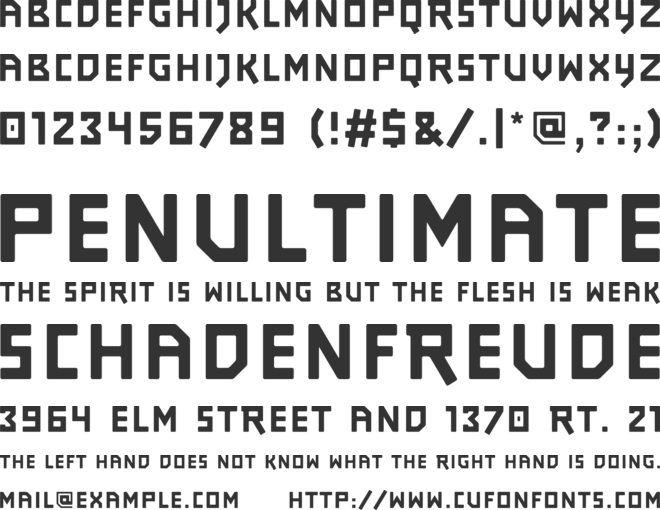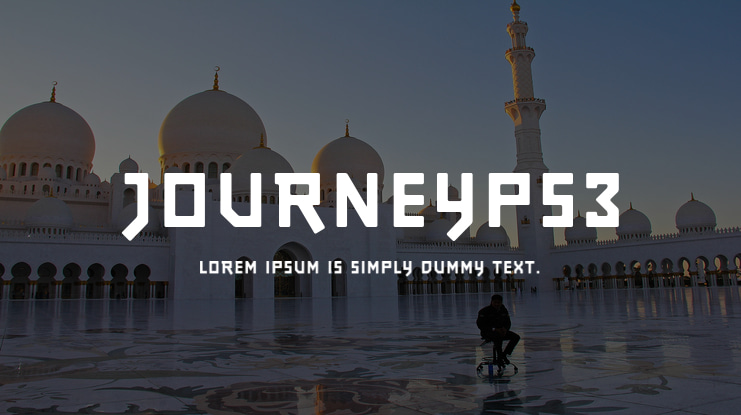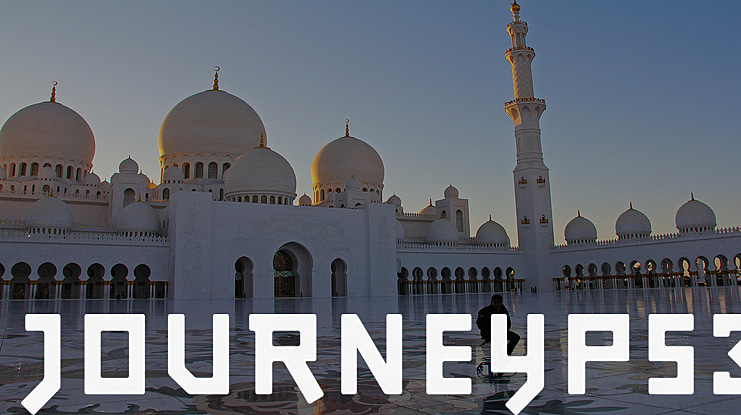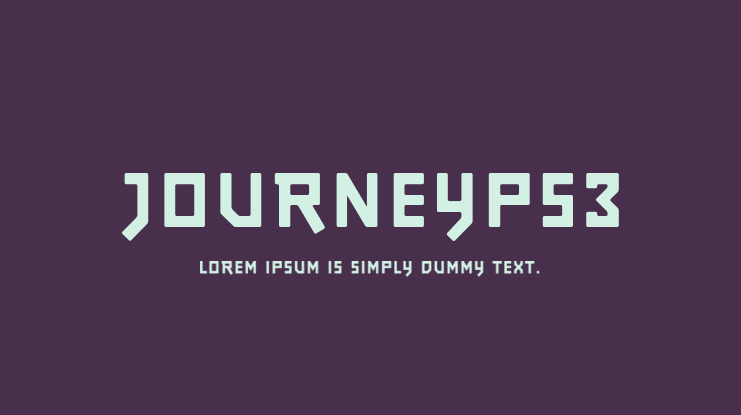
JourneyPS3 Font
This font is based on the title card of the Video Game "Journey" by thatgamecompany for PlayStation 3. The 7 letters within the game's name use and original design and are not part of complete font set. Since it looks so nice, I decided to create a full-fledged font by creating the remaining characters based on the official design.
Font based on PlayStation3's Journey title card.